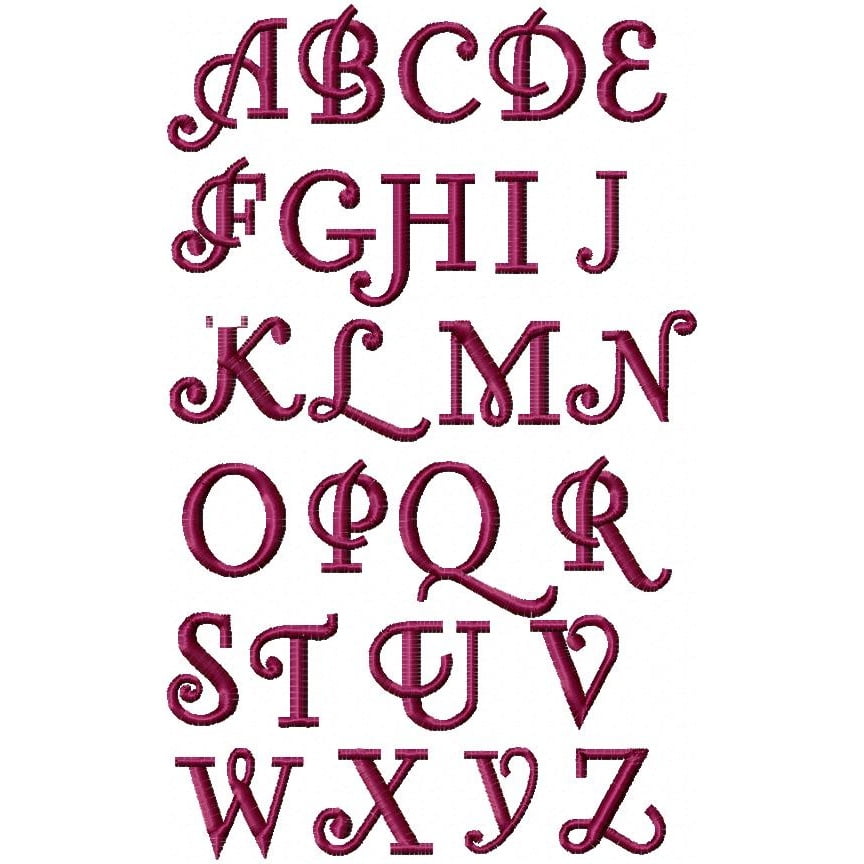
Carabelle Small Font
The Carabelle font, with its curves and curls, is very suitable for little girls’ labels on blankets or quilts. The writing is easily readable despite its relative smallness. Letters on the average stand about 0.4″ tall. Also excellent for the insertion of names and wording on a mug rug. 11 machine formats, including bx.